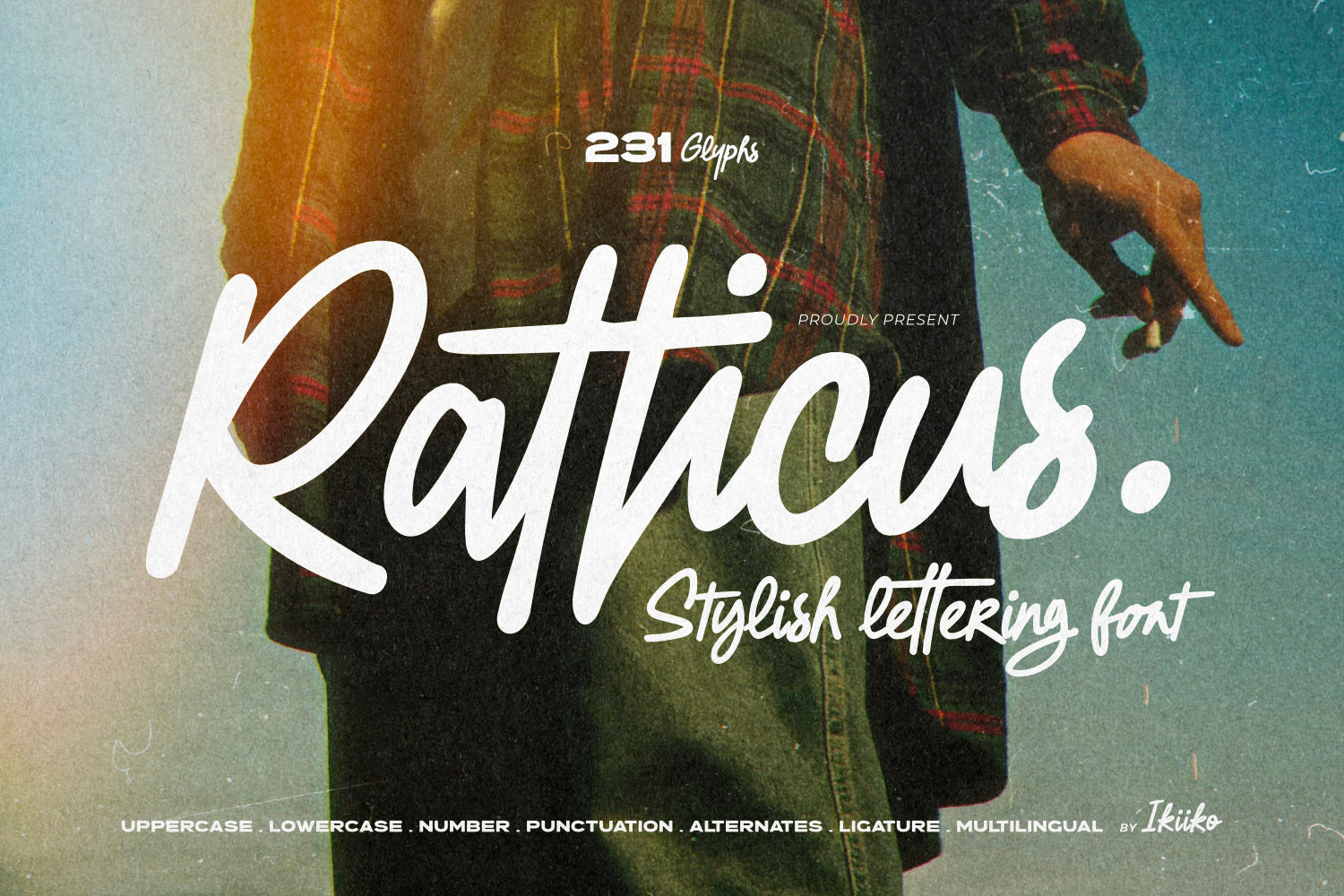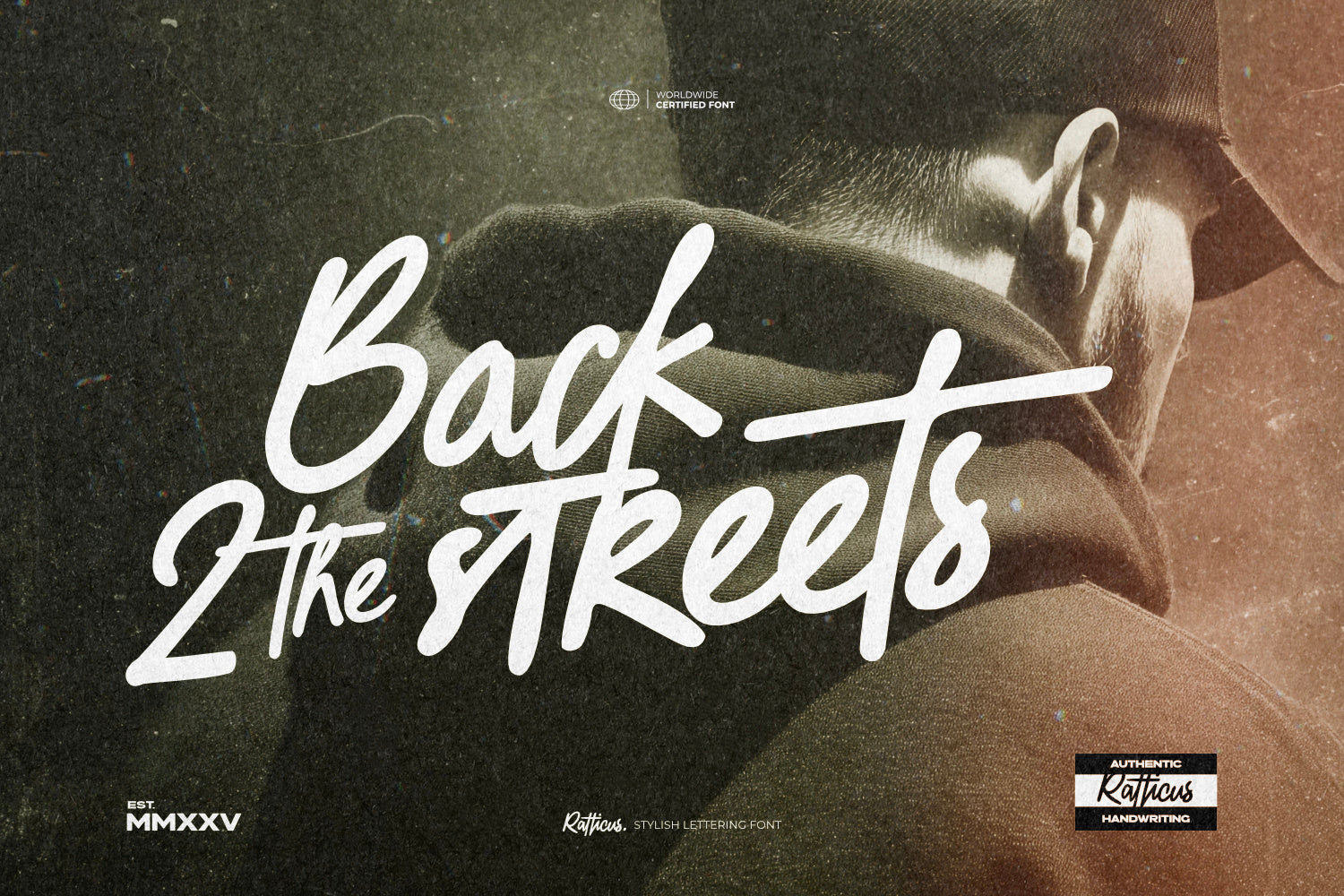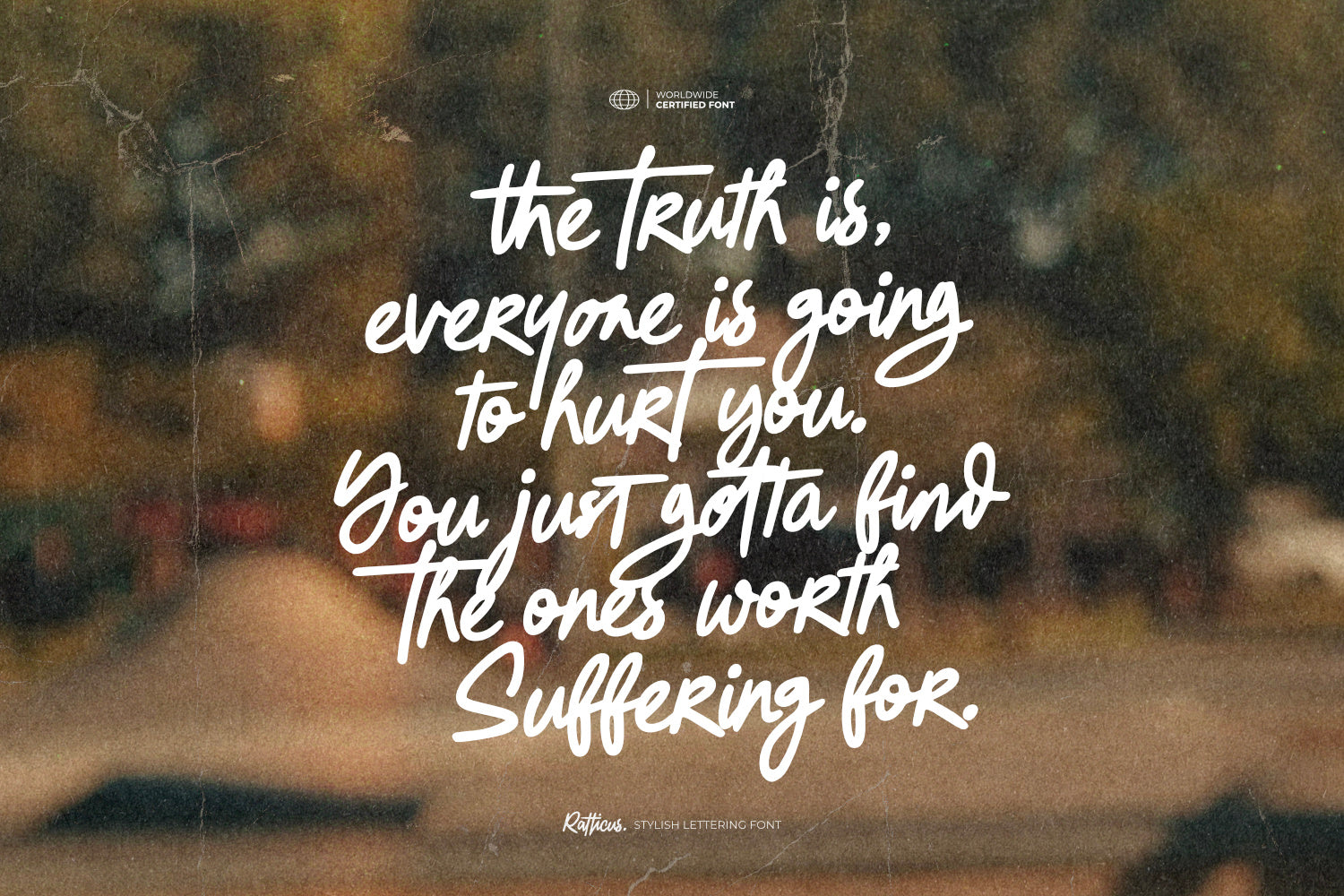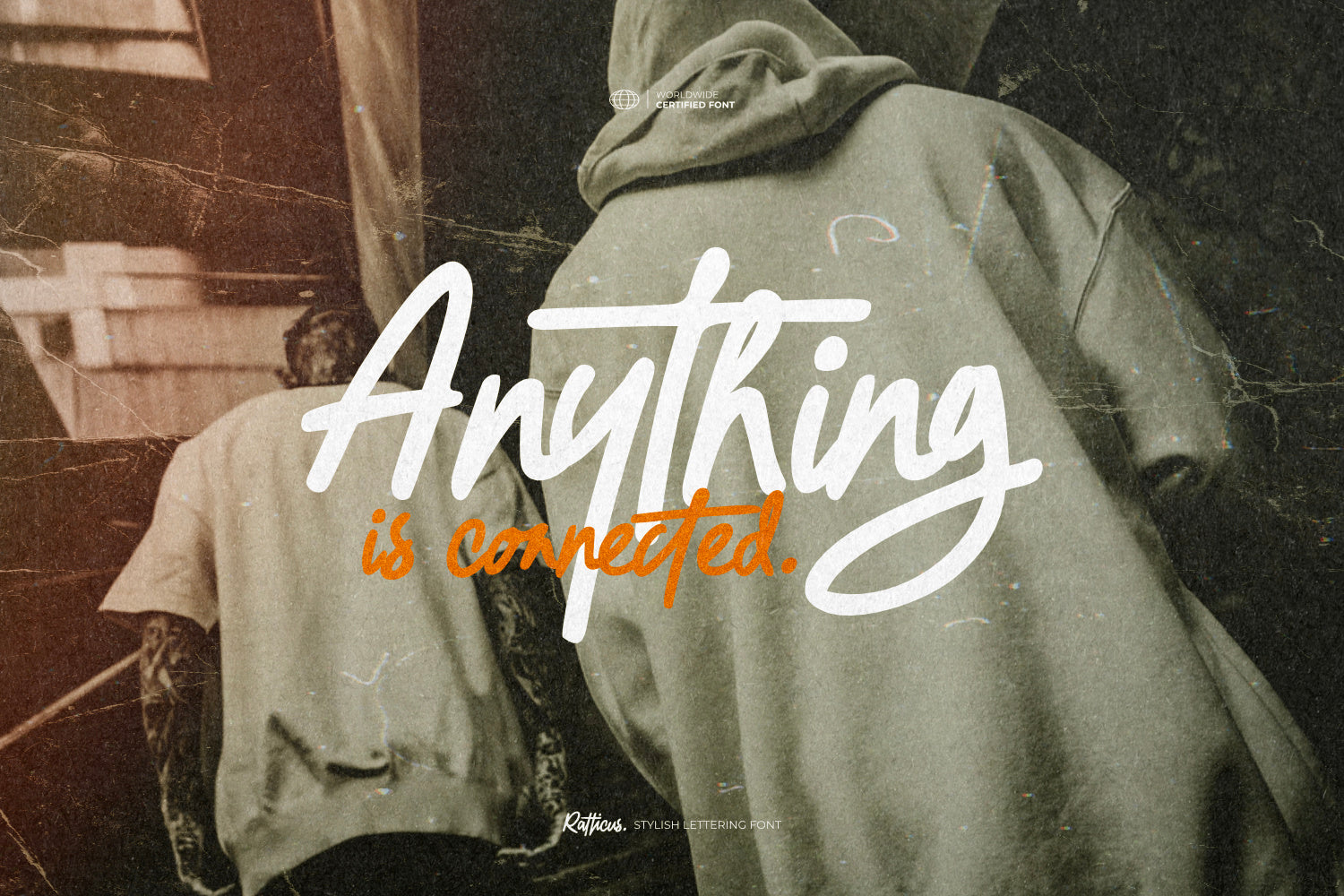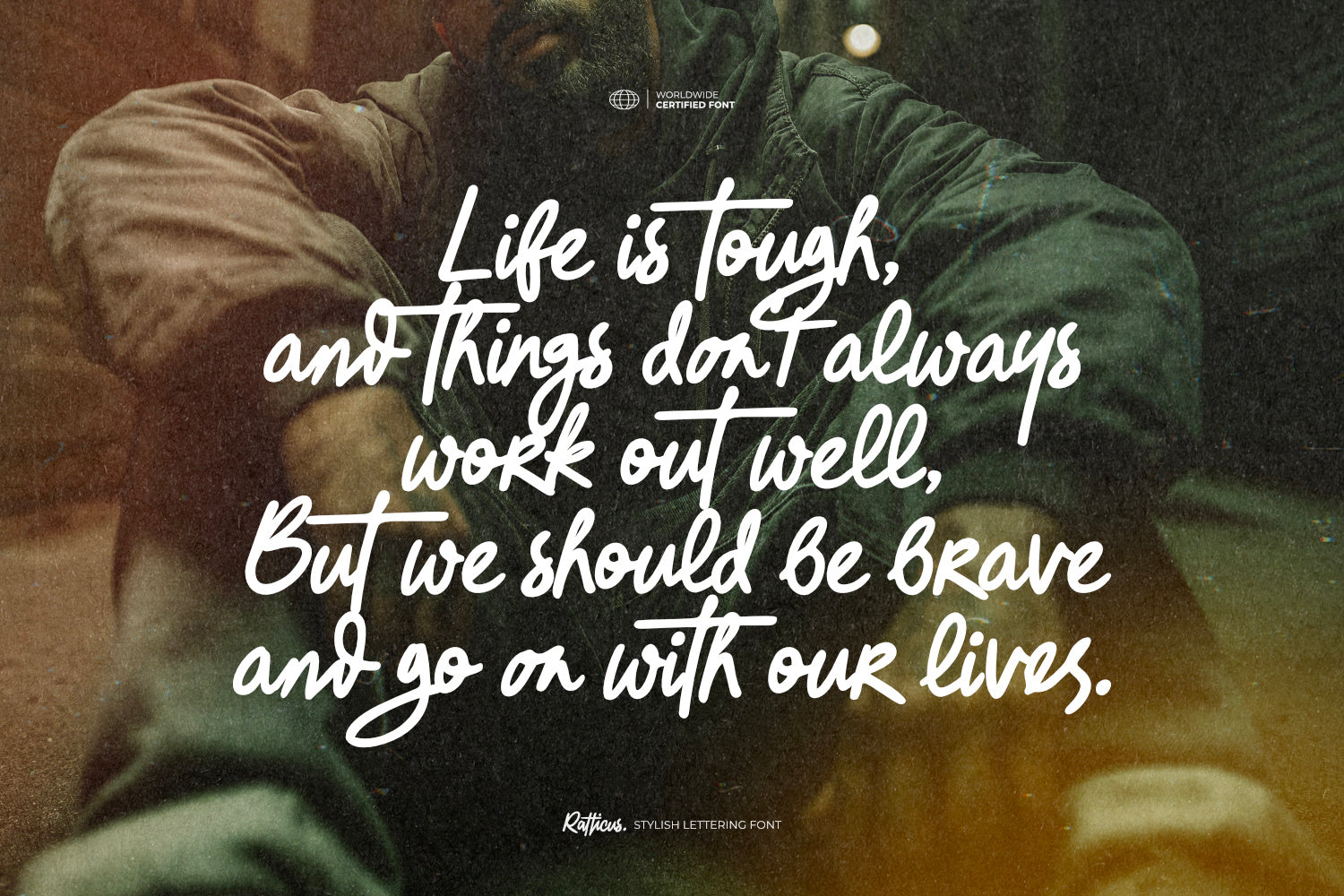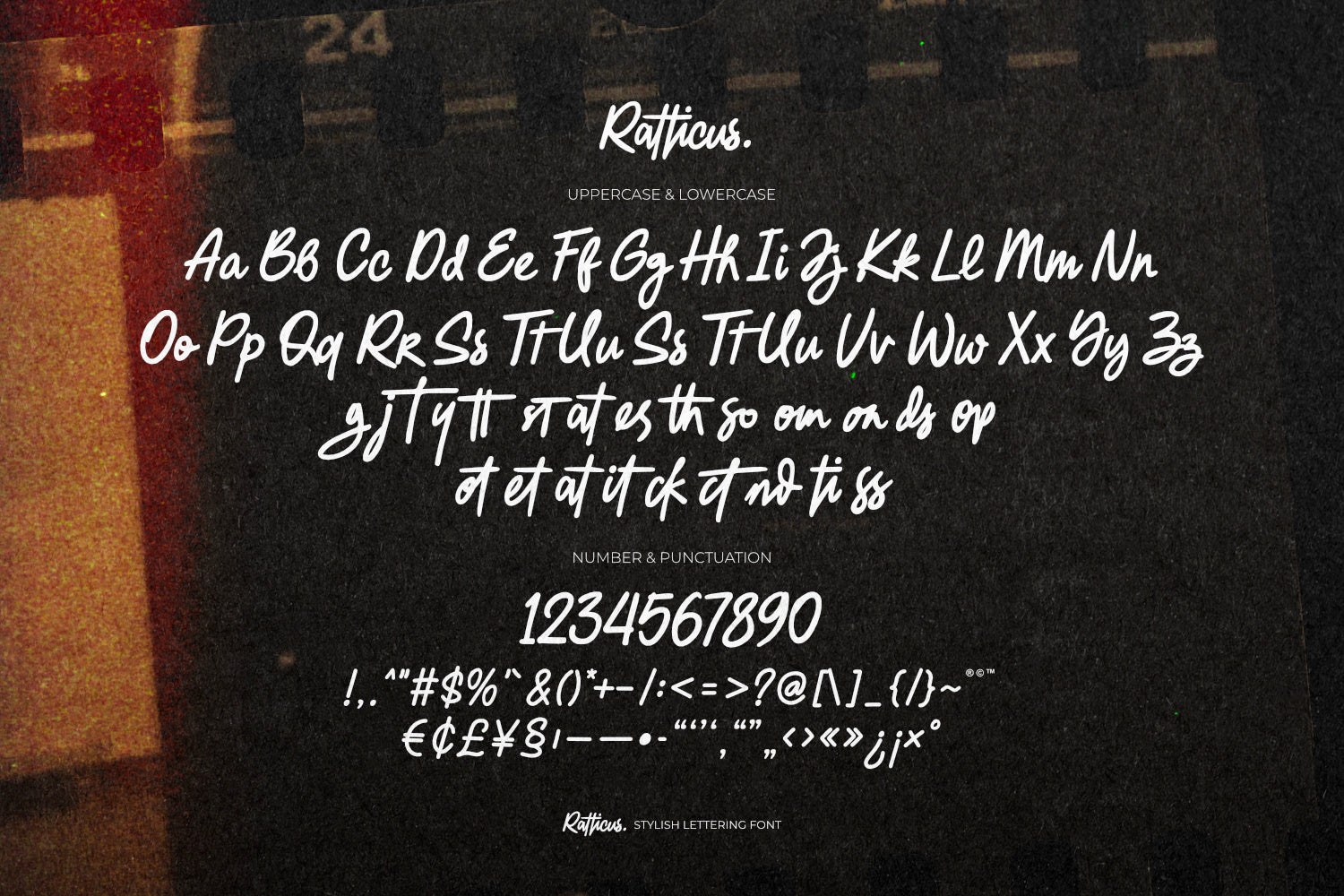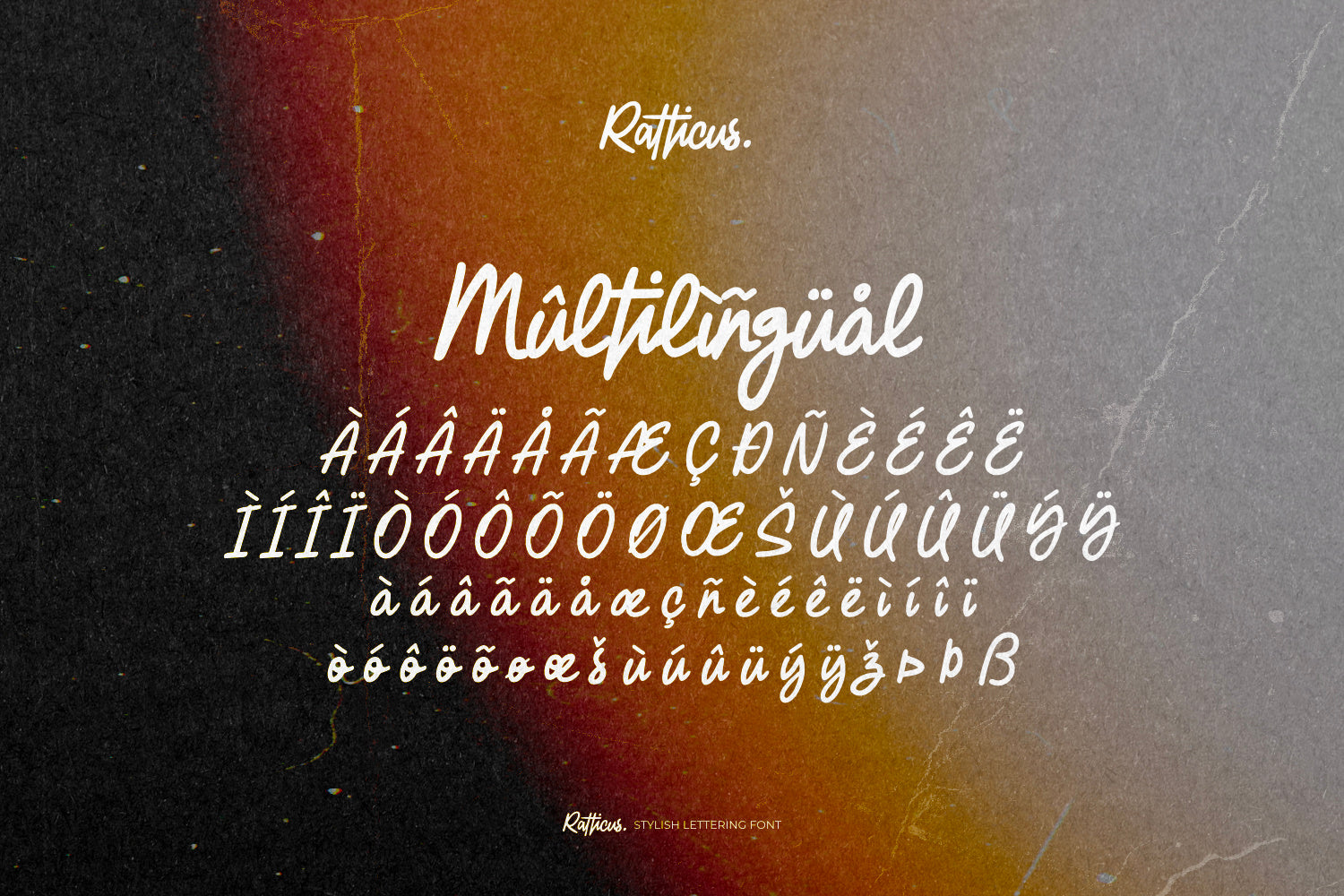
Proudly Present Rattics from Ikiiko Type - Stylish Lettering Font, created by ikiiko
Ratticus is your new go-to weapon for unleashing raw hand drawn vibes and untamed organic feels in every design. Inspired by authentic handwriting and rebellious street style, Ratticus drips with attitude and freedom. Each stroke screams expression, making it perfect for bold logos, edgy posters, or gritty apparel branding that demands attention.
This stylish lettering font doesn’t follow rules — it breaks them with a youthful energy that’s all about movement and individuality. Whether you’re crafting a graffiti-inspired label or an urban social media post, Ratticus delivers that hand drawn, organic, and free-spirited aesthetic that today’s youth culture craves.
This typeface is perfect for an poster, streetwear, logotype, magazine layout, fashion brand, quotes, or simply as a stylish text overlay to any background image.